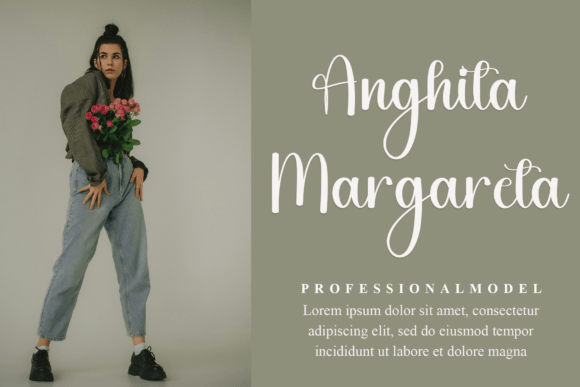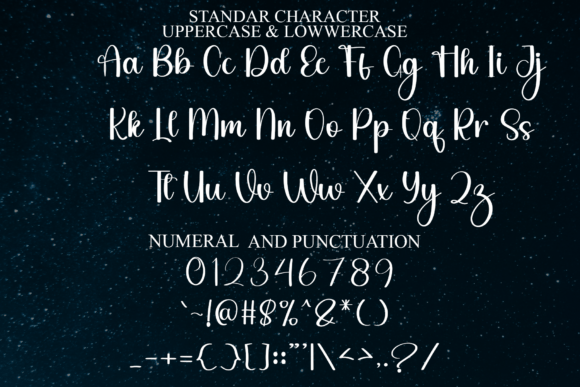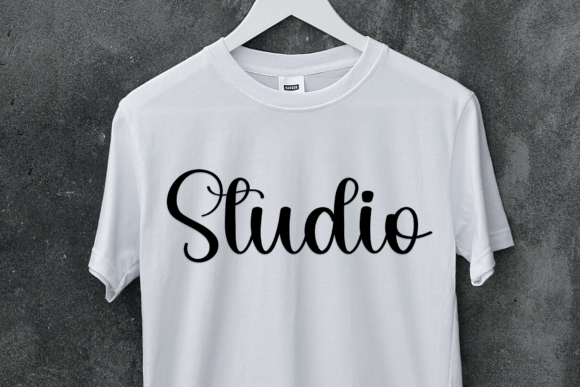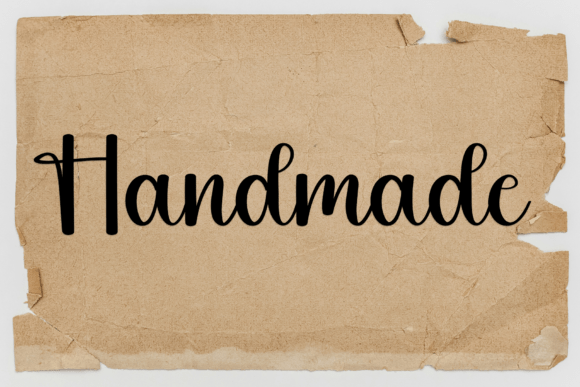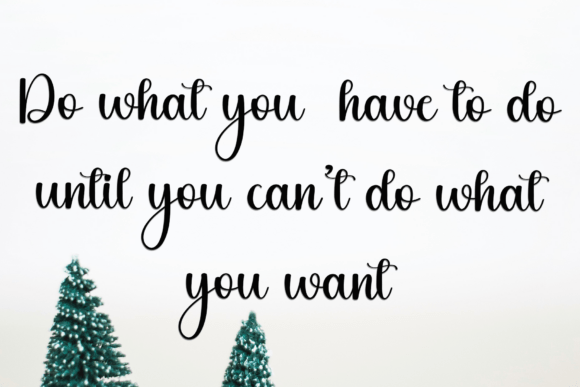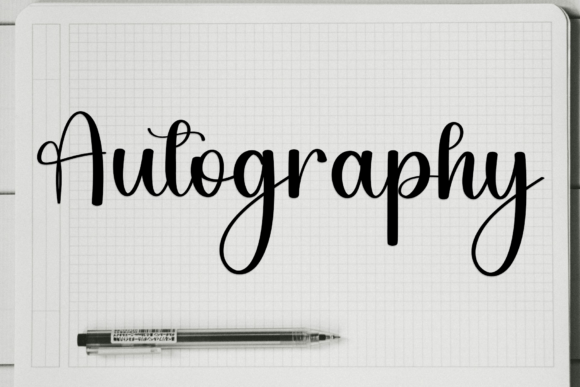
Introducing Delighted Font: A Timeless Handwritten Masterpiece
Are you on the hunt for a font that can elevate your designs and make them truly unforgettable? Look no further than Delighted Font, a lovely and timeless handwritten font that is sure to capture the hearts of designers and crafters alike. With its unique and beautiful touch, Delighted Font is the perfect choice for creating eye-catching logos, branding, and quotes that will leave a lasting impression.
Handwritten fonts have a way of adding a personal touch to any design. They evoke a sense of warmth, elegance, and sophistication that is hard to replicate with other font styles. Delighted Font is no exception, boasting a charming and whimsical feel that is sure to delight audiences of all ages. Whether you’re looking to create a logo, branding materials, or social media graphics, Delighted Font is the perfect choice for adding a touch of personality to your designs.
What Makes Delighted Font Special?
So, what sets Delighted Font apart from other handwritten fonts on the market? For starters, every letter has a unique and beautiful touch that will make your design come alive. The font is carefully crafted to ensure that each letter is distinct and visually appealing, making it perfect for creating eye-catching logos and branding materials. Additionally, Delighted Font is highly versatile, making it suitable for a wide range of design applications, from digital graphics to print materials.
Delighted Font is a dream come true for designers and crafters who are looking for a font that can help them create stunning designs. Whether you’re a professional designer or a hobbyist crafter, Delighted Font is easy to use and can be incorporated into your designs with ease. The font is compatible with a range of design software, including Adobe Illustrator and Canva, making it easy to get started and create beautiful designs.
With Delighted Font, the design possibilities are endless. Here are just a few ideas to get you started:
- Create eye-catching logos and branding materials that will help your business stand out
- Design beautiful quotes and social media graphics that will inspire and delight your audience
- Make stunning stationery and print materials, such as business cards and brochures
- Develop gorgeous digital graphics, including blog headers and website elements
Tips for Using Delighted Font
To get the most out of Delighted Font, here are a few tips to keep in mind:
- Pair Delighted Font with other fonts to create a unique and visually appealing combination
- Don’t be afraid to get creative and try out new and innovative design ideas
- Use Delighted Font consistently across your designs to create a cohesive and recognizable brand
In conclusion, Delighted Font is a timeless handwritten font that is sure to delight designers and crafters alike. With its unique and beautiful touch, Delighted Font is the perfect choice for creating eye-catching logos, branding, and quotes that will leave a lasting impression. Whether you’re a professional designer or a hobbyist crafter, Delighted Font is a must-have font that will help you take your designs to the next level.
Get Ready to Fall in Love with Delighted Font
So, what are you waiting for? Get ready to fall in love with Delighted Font and discover the endless design possibilities that it has to offer. With its charming and whimsical feel, Delighted Font is sure to become a favorite in your design arsenal. So, go ahead and get creative with Delighted Font today and see the amazing designs that you can create!